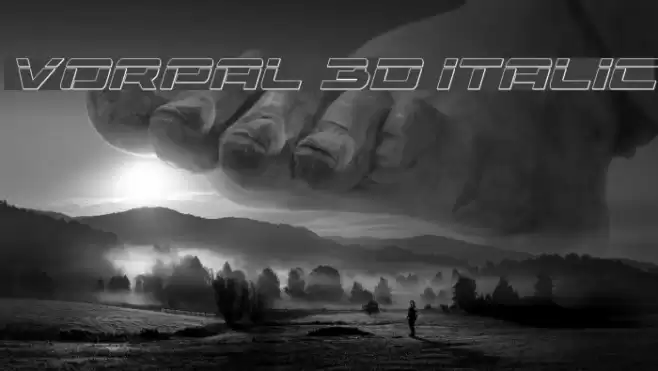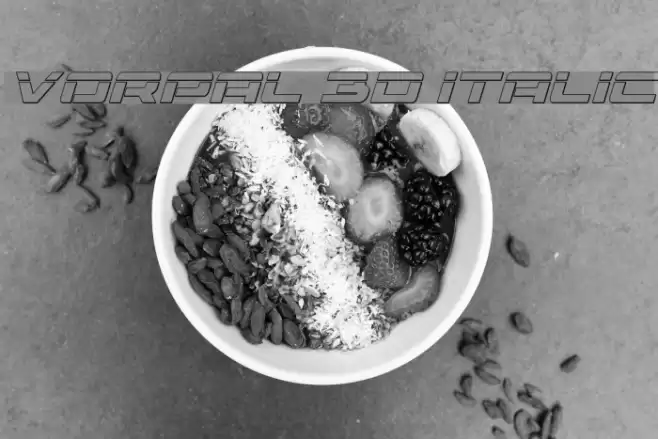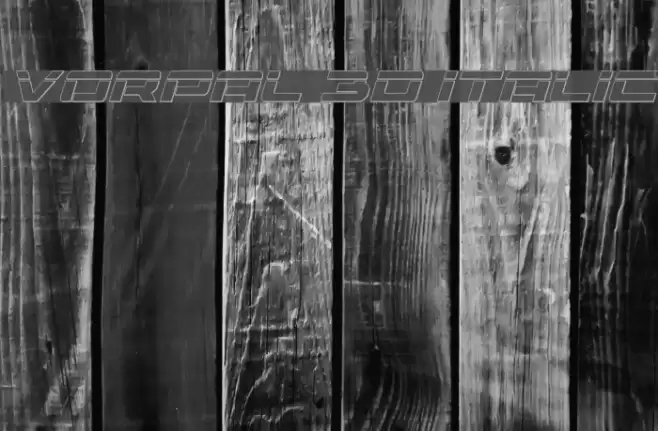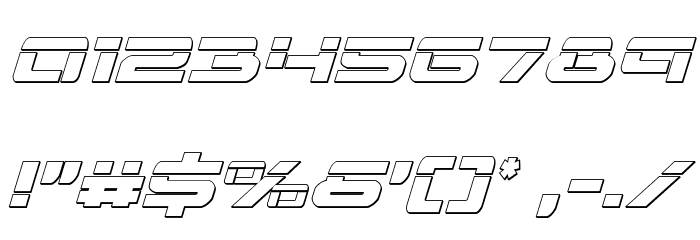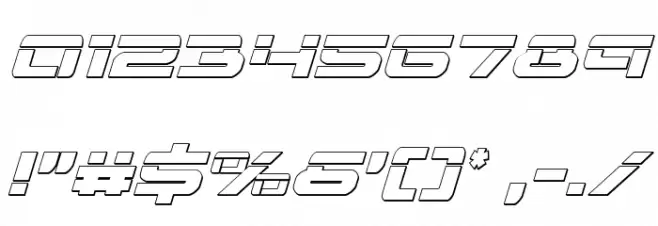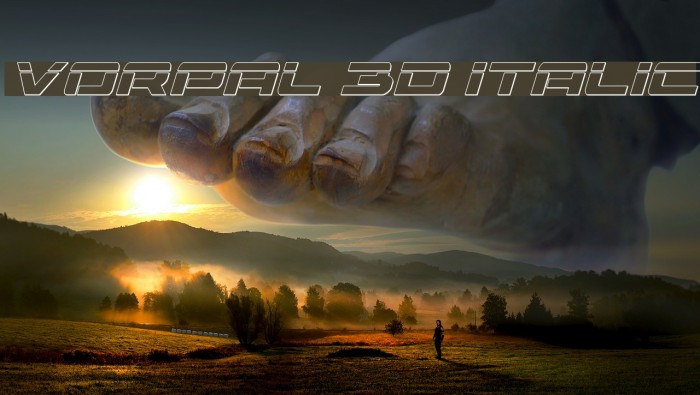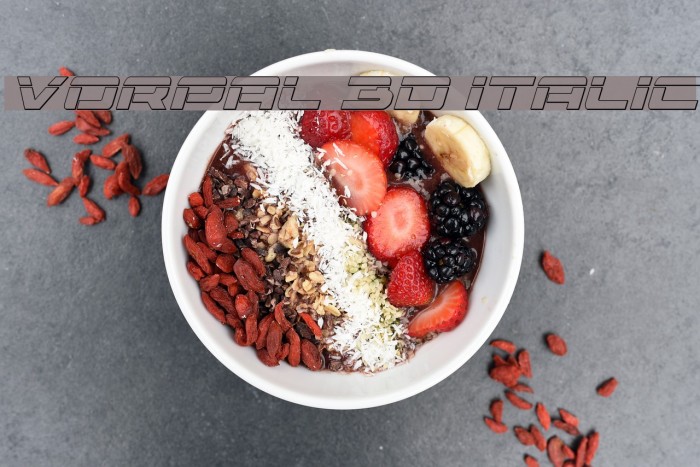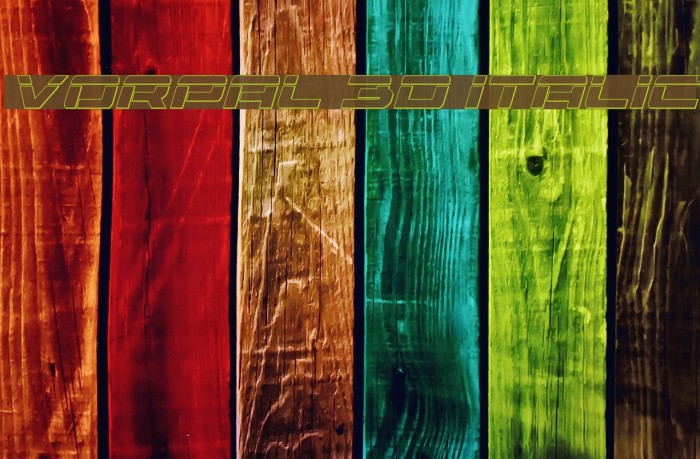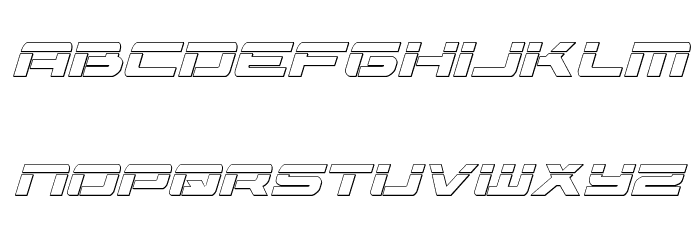
Vorpal 3D Italic Font
Vorpal 3D Italic Description
This font features a futuristic, three-dimensional design with a distinct italic slant. The characters are outlined, giving them a hollow appearance that enhances their modern and dynamic look. Each letter and number is crafted with sharp angles and geometric precision, creating a sense of movement and depth. The style is consistent across uppercase, lowercase, and special characters, maintaining a cohesive visual theme. The font's unique structure makes it stand out, ideal for projects that require a bold and innovative aesthetic.
A futuristic, 3D italic font with outlined, geometric characters from Uncategorized fonts.
- Proposed Projects: Ideal for sci-fi themed designs, video game graphics, tech branding, and futuristic posters.